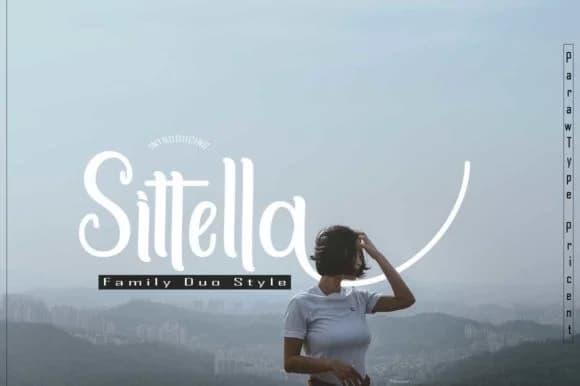
Sittella brings an unhurried, intimate quality to whatever page it lands on. Designed by parawtype, this handwritten script captures the charm of pen on paper while remaining remarkably legible across sizes and contexts.
The light weight and flowing letterforms make it particularly suited to wedding invitation suites, where it can set an elegant tone across save-the-dates, RSVPs, and thank-you cards alike. Small businesses find it invaluable for hand-lettered product labels on boutique skincare boxes, artisan food packaging, or hand-poured candles. It's equally at home on greeting cards, personalized gift tags, or the kind of branding work that independent makers use on Etsy and Instagram. The versatility here matters: calligraphy-inspired but never fussy, organic but controlled enough to read clearly even when rendered at small sizes. These letterforms feel authentic without the pretense that sometimes plagues decorative scripts, which is why designers keep coming back to it.
The individual characters flow naturally, with subtle variations that keep the texture feeling genuinely handmade while maintaining polish and professionalism. Pair Sittella with a clean, minimal sans-serif like Inter or Montserrat when you need supporting body text, and you'll have a combination that feels both refined and approachable. You can grab it on Creative Fabrica and start using it right away.
Sittella Font is a script font that shines as a display or heading face. Pair it with a clean sans-serif or serif font for body text β the contrast creates a clear hierarchy while the two styles stay balanced and easy to read.
Sittella Font
by parawtype